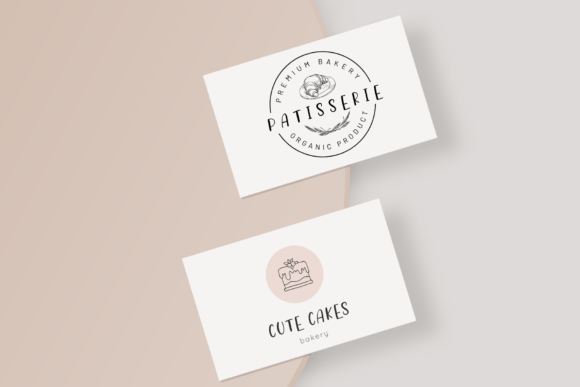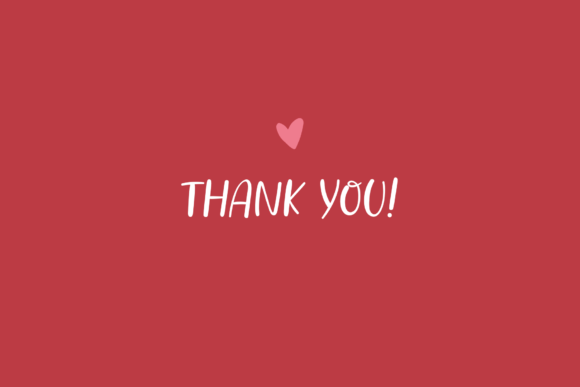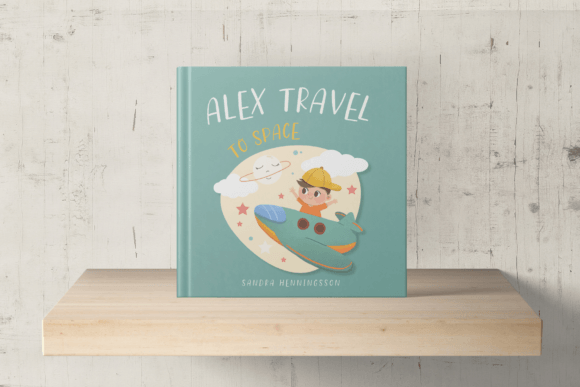
About Fabulous Font
Fabulous is a cute and adorable handwritten font. Use Fabulous to create super cute logos, branding, notebooks, journals, labels, stickers, blogs, quotes, greeting cards, tea towels, apparel, pillows, mugs, toys, posters, baby clothing, picture books and so much more…basically anything that requires a fun and joyful look!